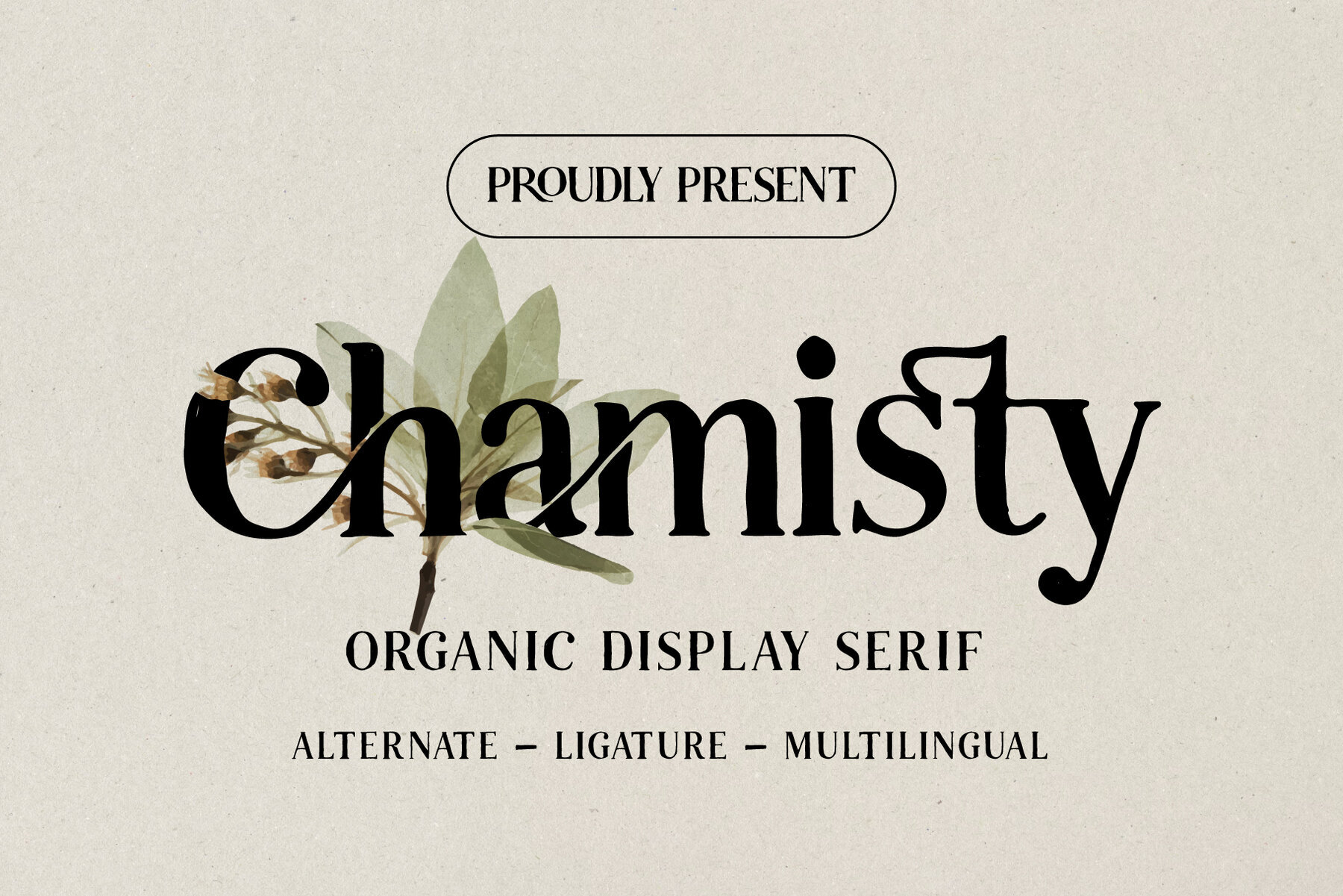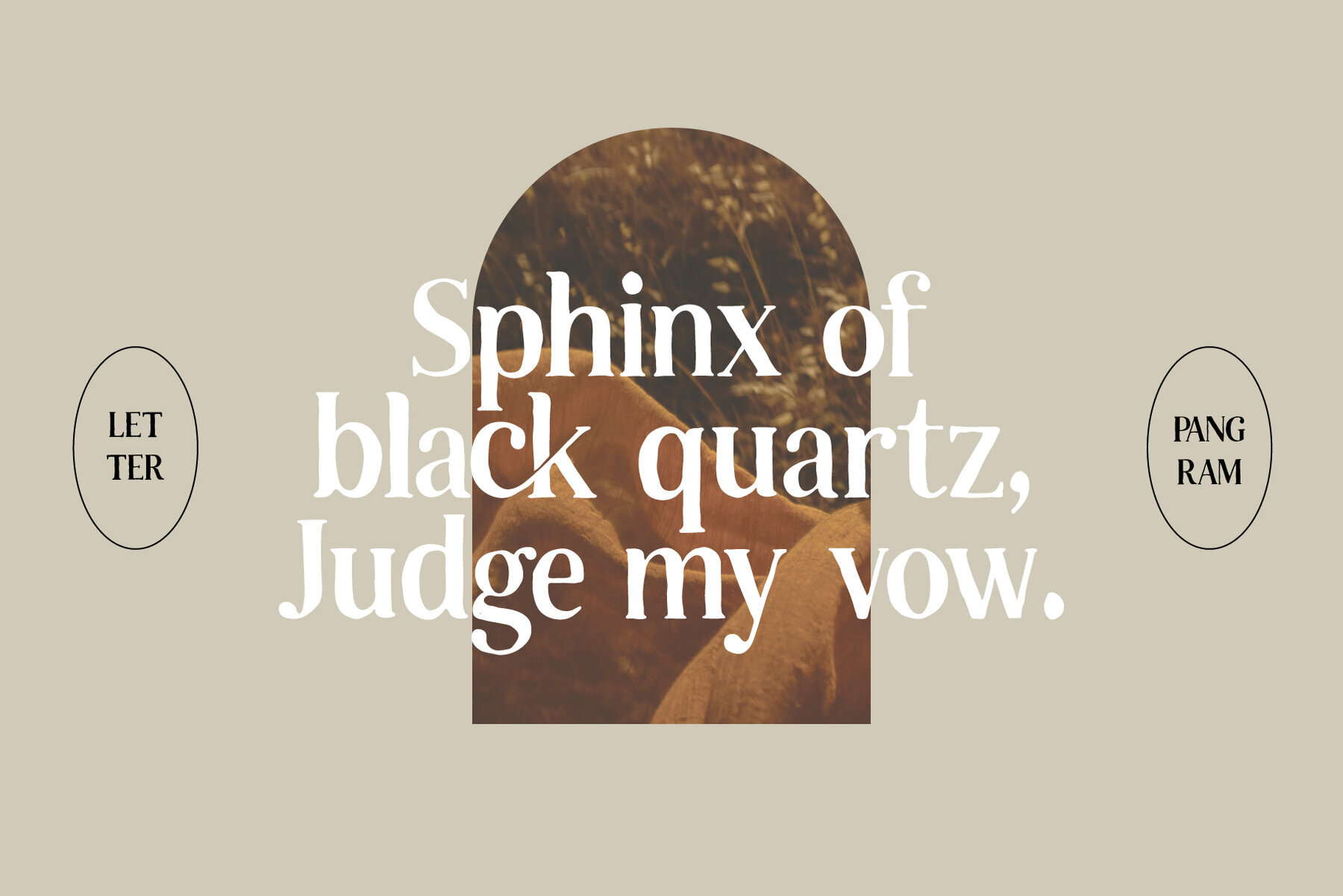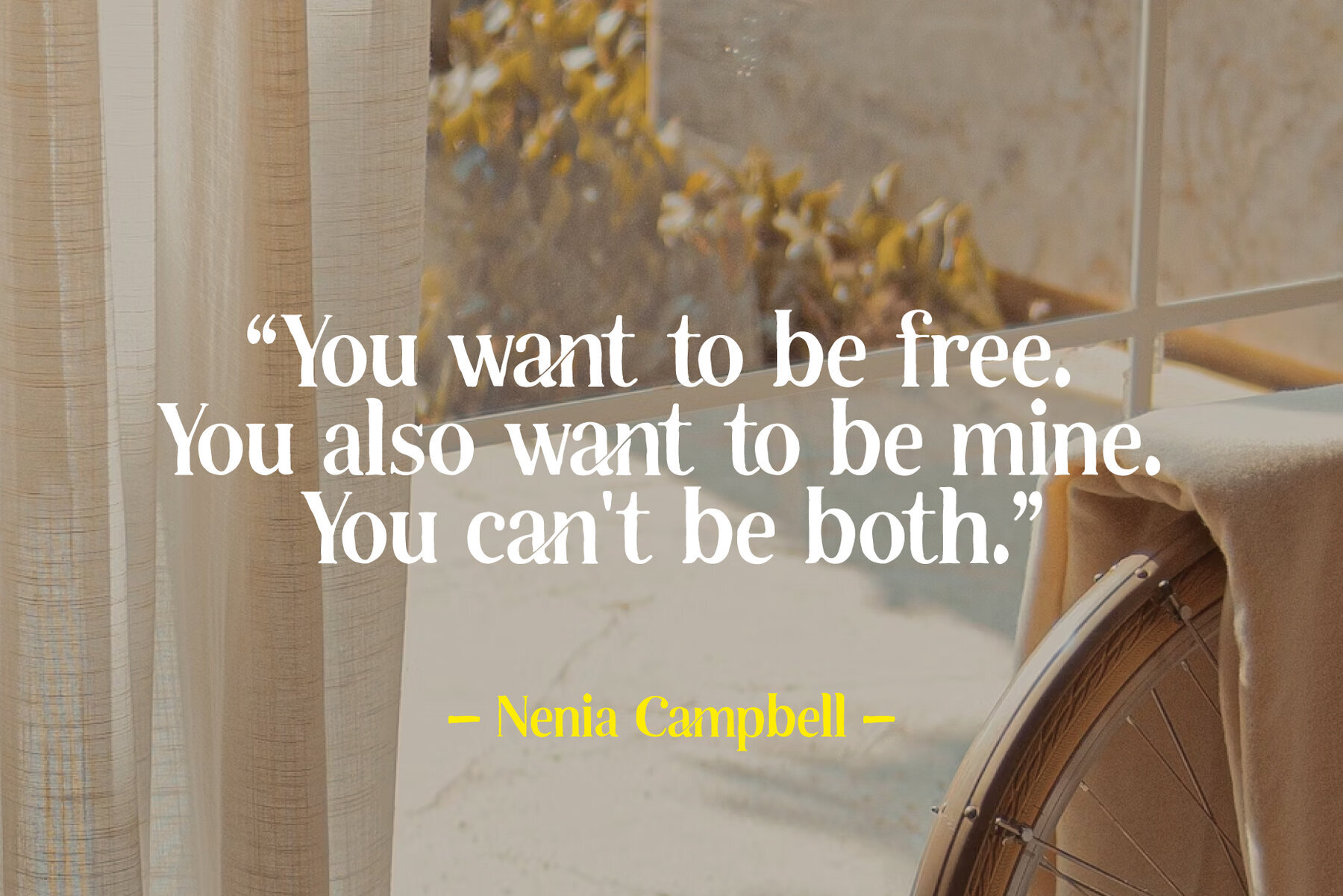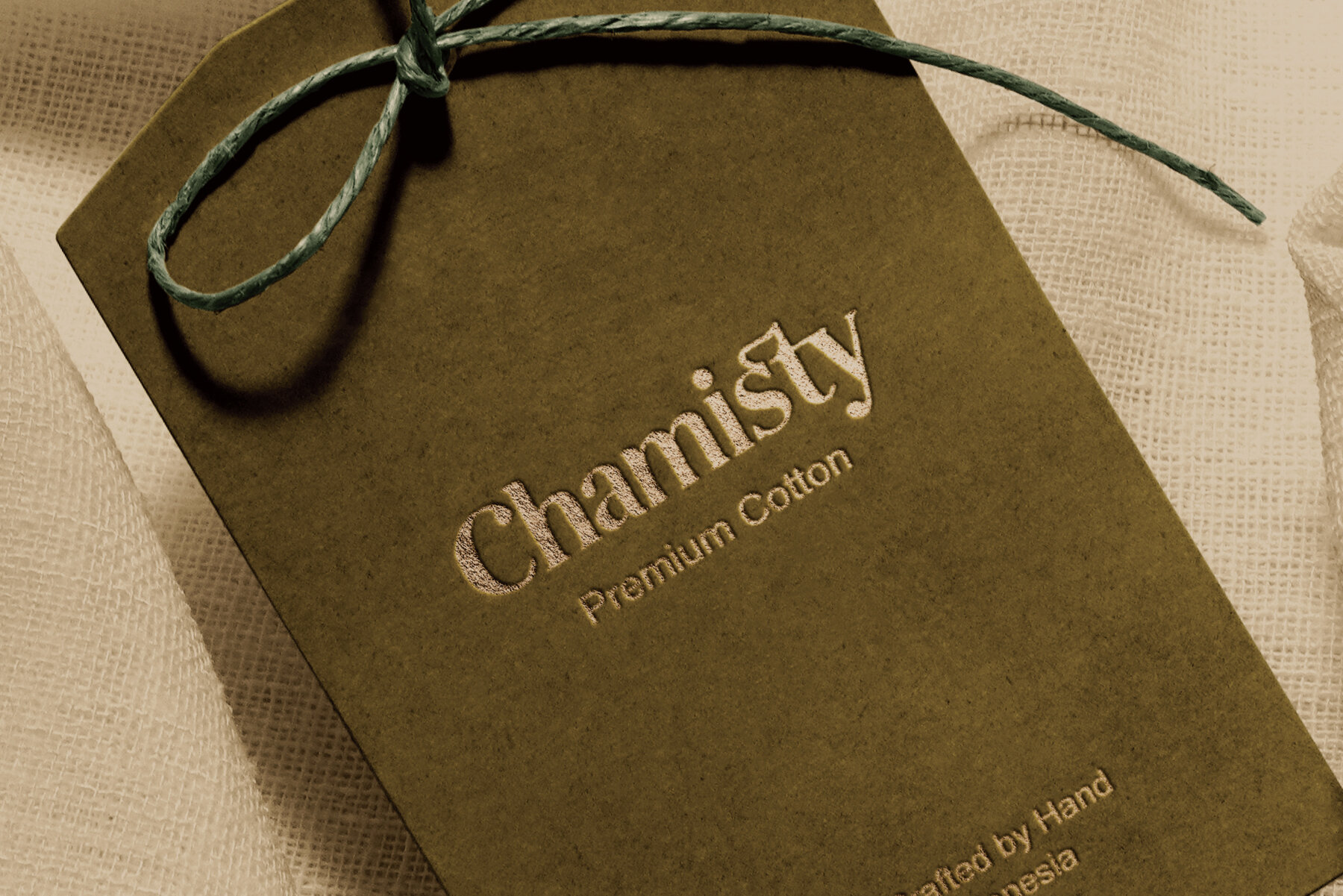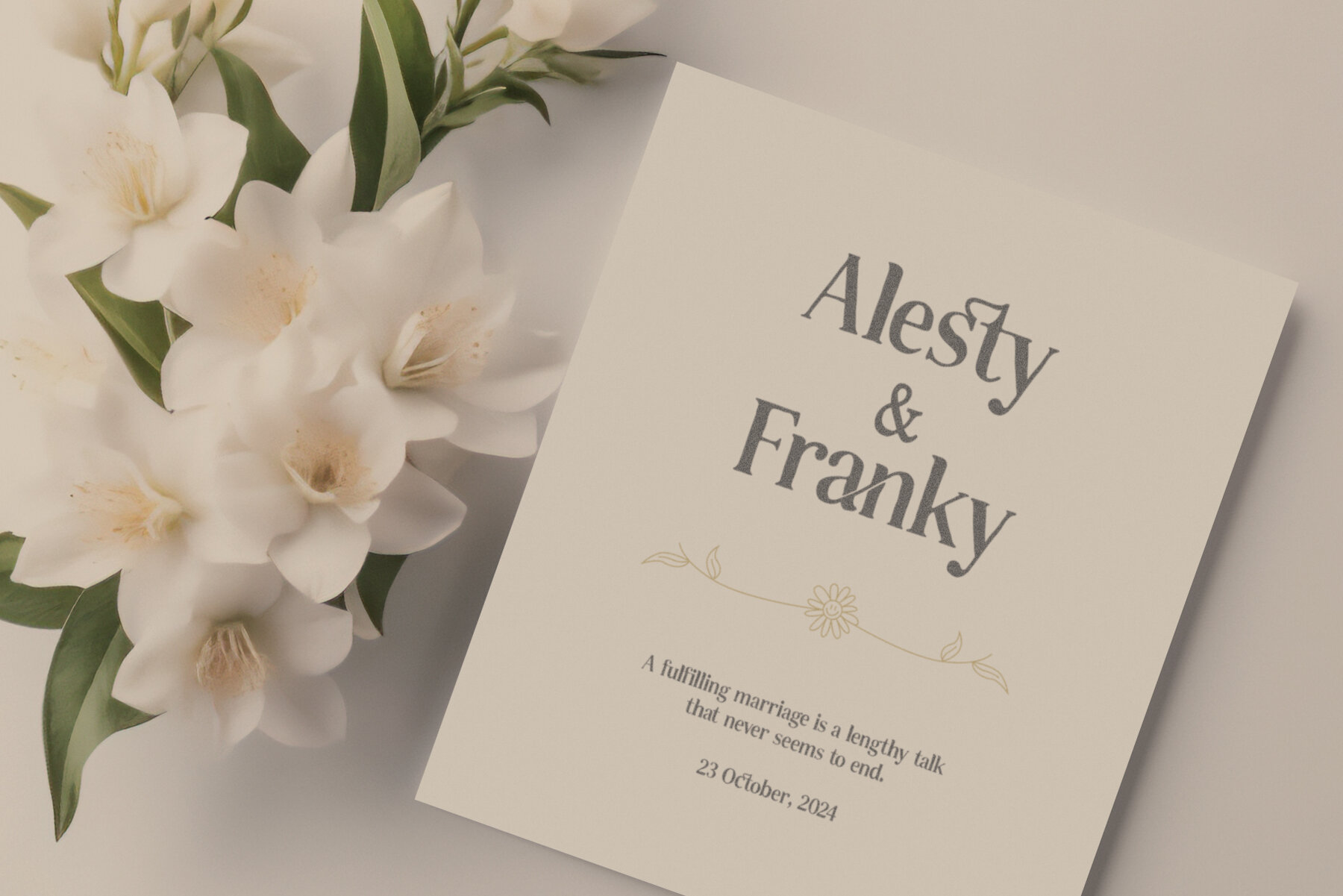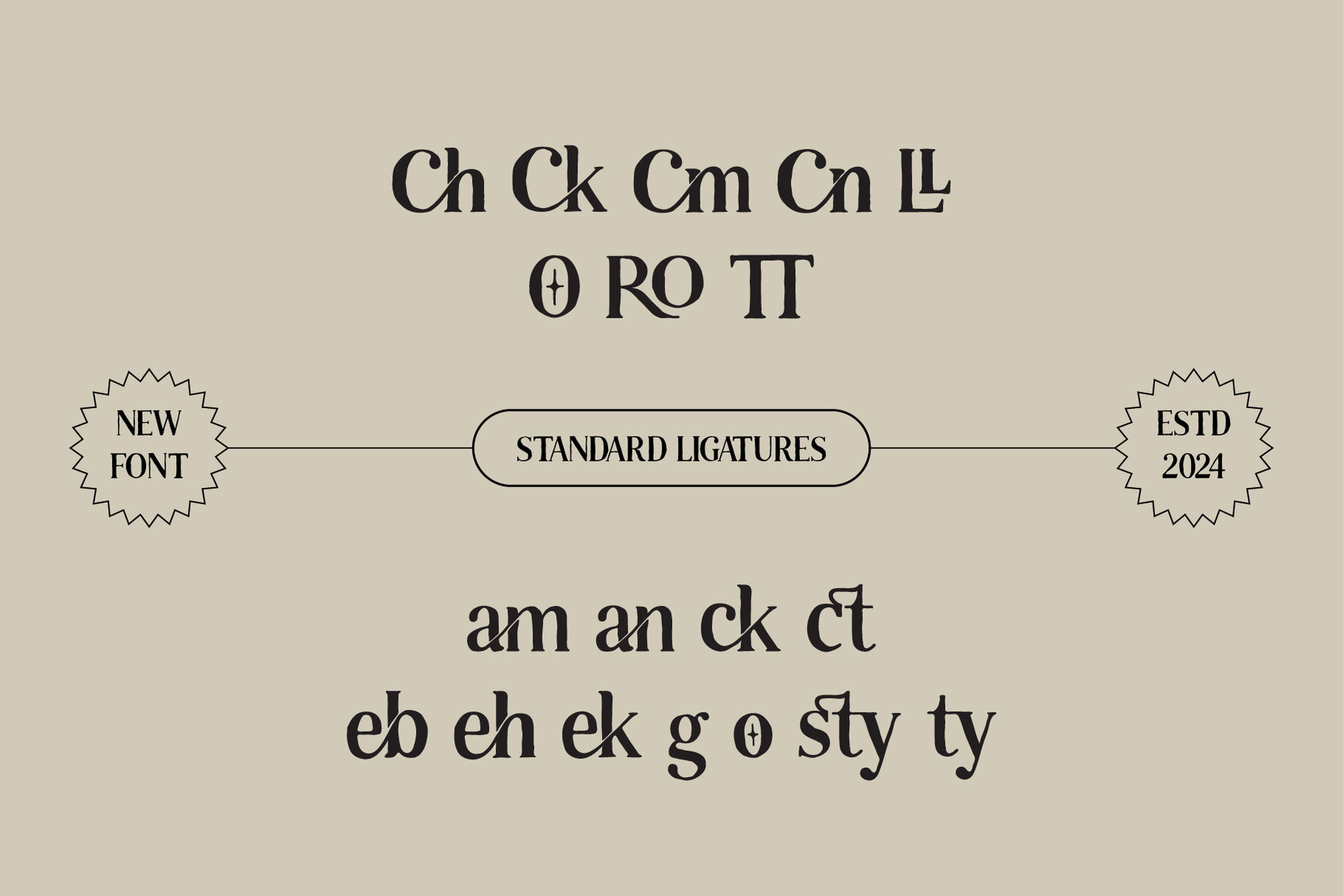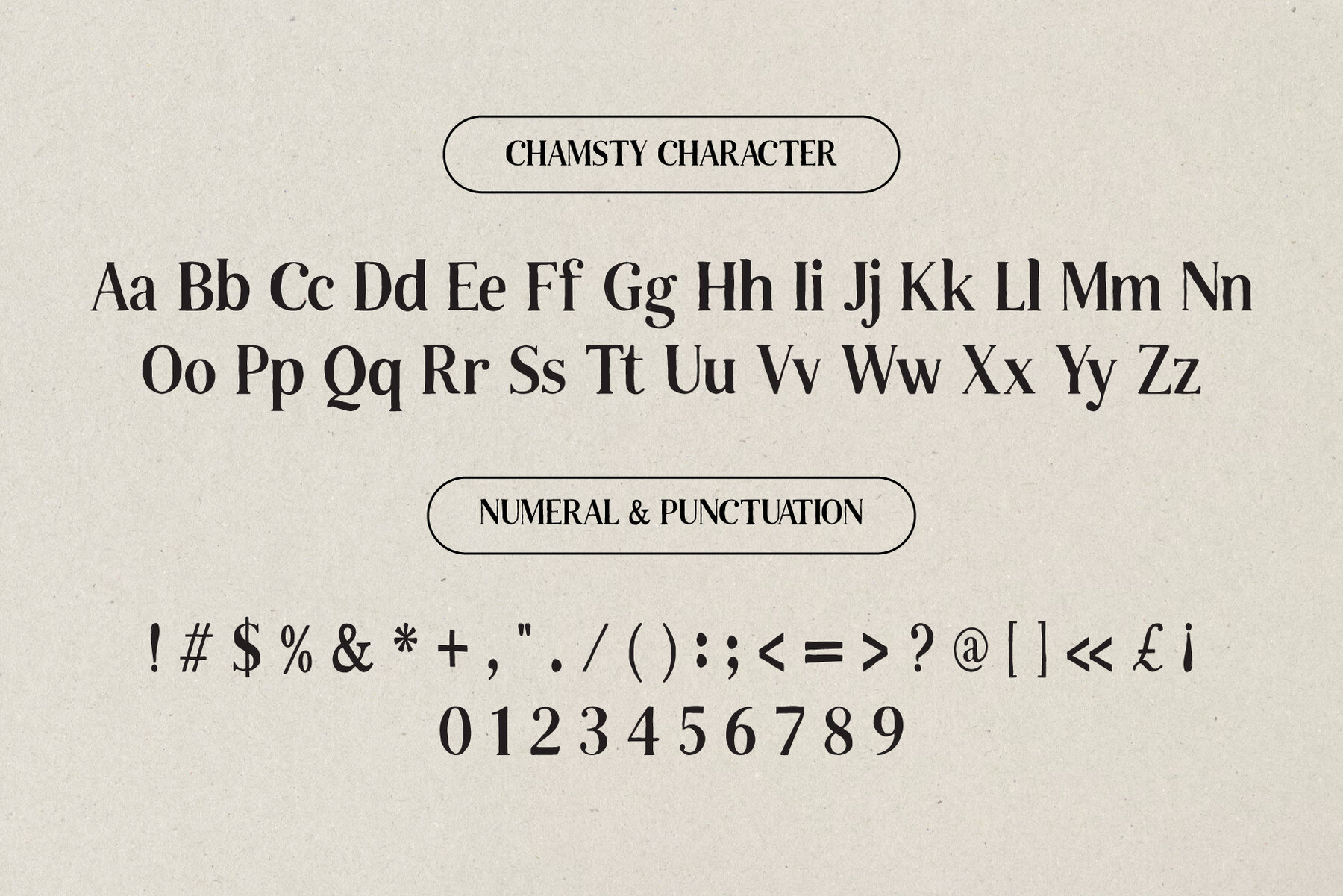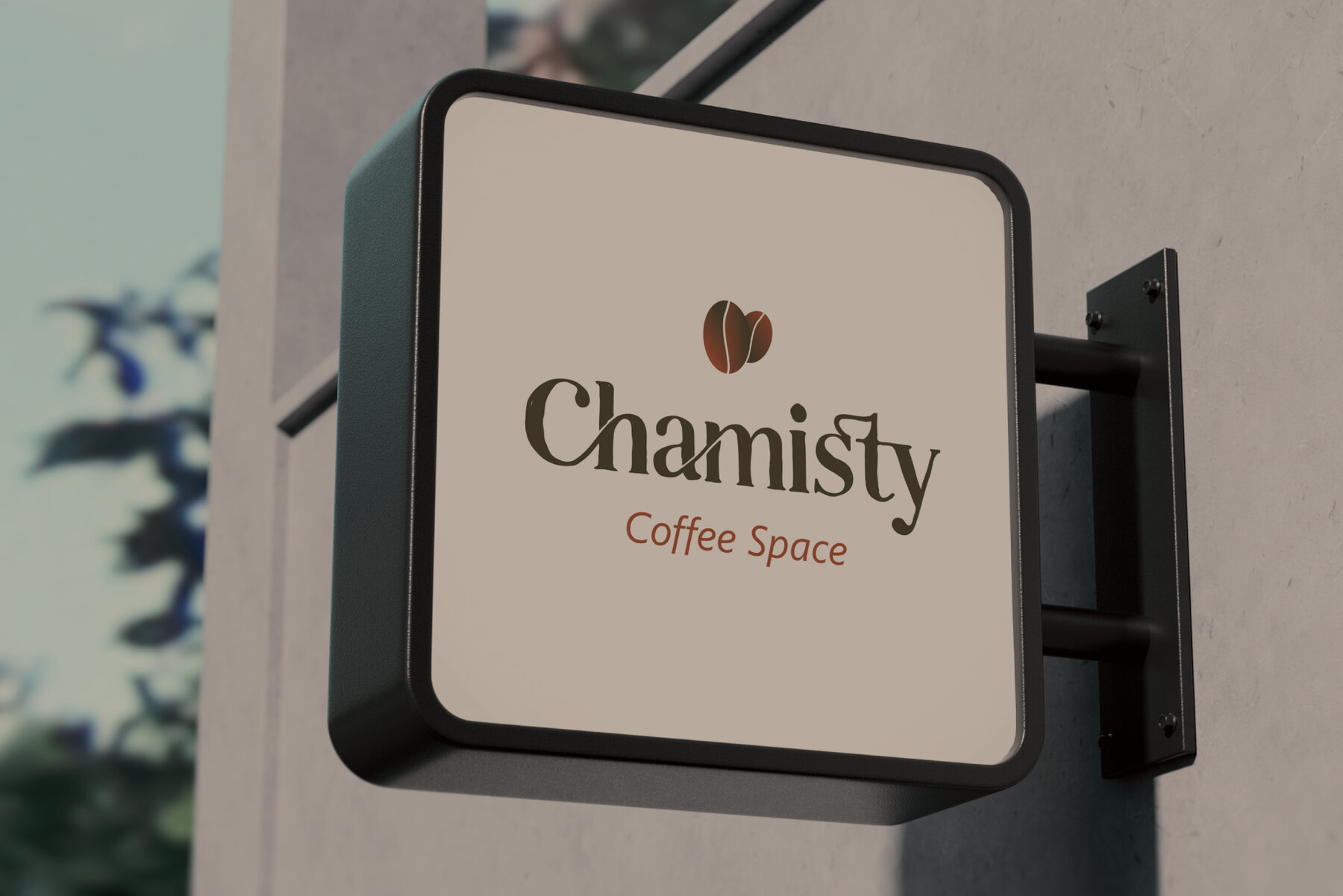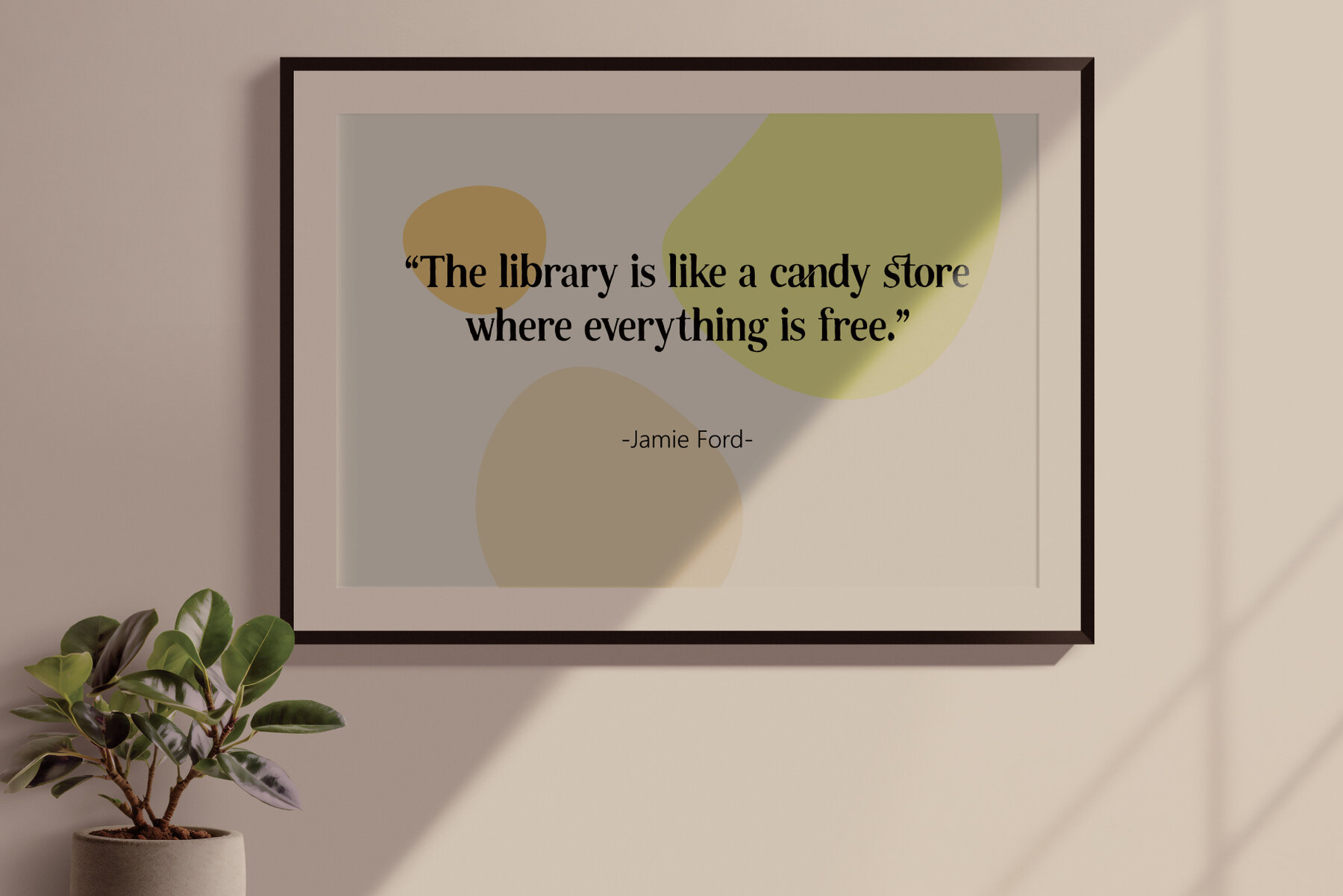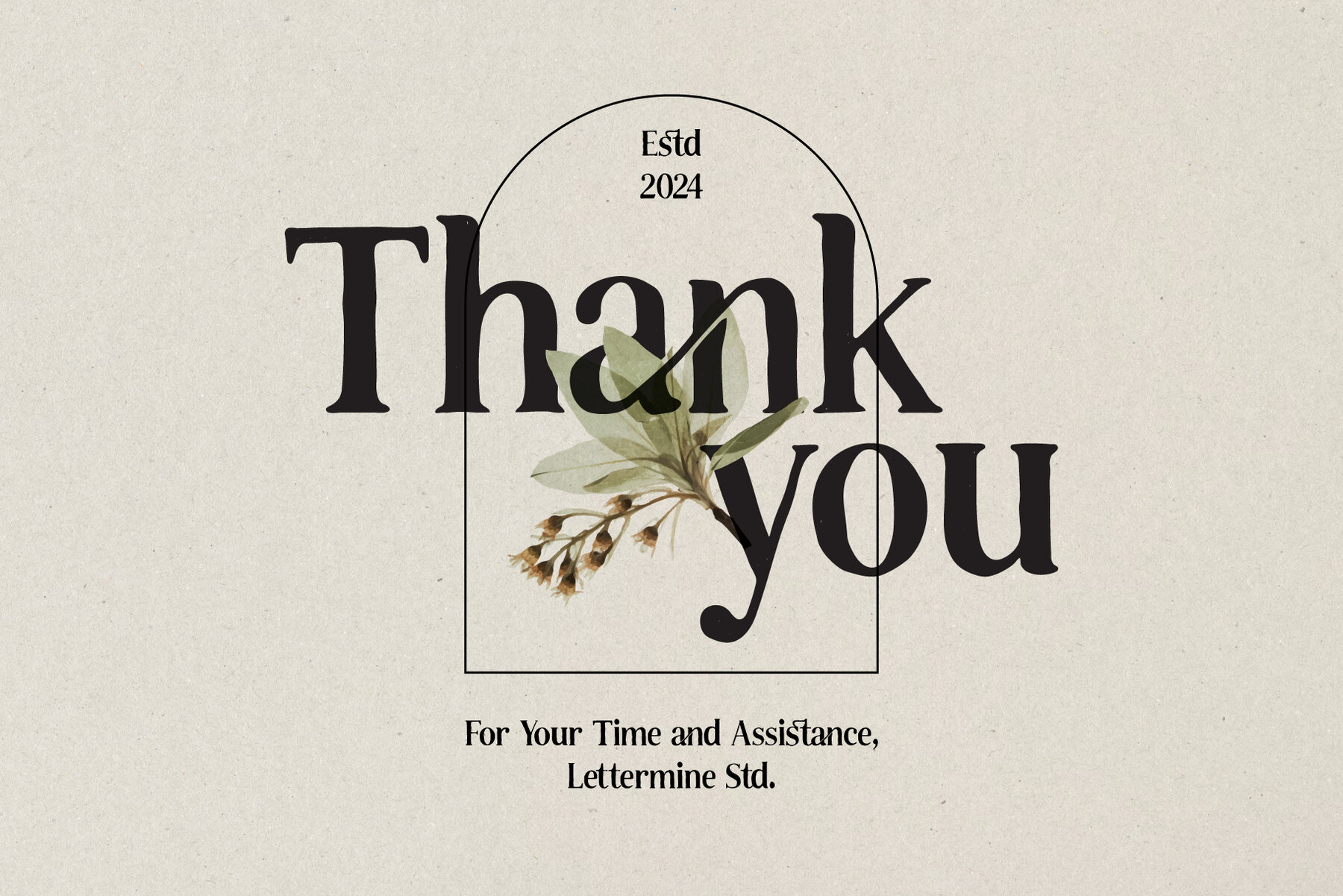
Chamisty Font
Chamisty Regular
Chamisty is a sophisticated serif font that brings an elegant touch to your designs. With its delicate strokes and graceful curves, it is the ideal choice for creating timeless and sophisticated projects. Elevate your designs with Chamisty and let its timeless beauty speak for itself. ——————————————————————————————————— Copyright © 2024 by Lettermine. All rights reserved.Chamisty: Elegant and Timeless Serif Font